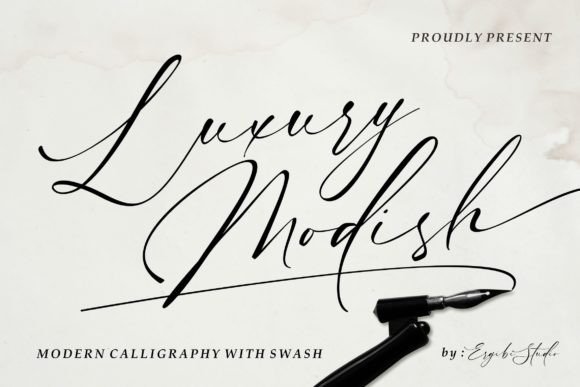
Journey into the realm of sophistication and elegance with Luxury Modish, the calligraphy font that exudes grandeur and opulence. Inspired by beautiful penmanship, Luxury Modish adds a touch of refinement to any project, making it the perfect choice for discerning designers and creative professionals.
Step into the world of Luxury Modish, where every letter is a stroke of artistry, flowing effortlessly to create a visual masterpiece. With its luxurious feel and additional swash lines, Luxury Modish elevates your designs to unparalleled heights, capturing the essence of timeless elegance.
Unleash your creativity with Luxury Modish, the ultimate font for branding, photography, invitations, quotes, watermarks, advertisements, product designs, social media posts, stationery, labels, and more! Its versatility knows no bounds, allowing you to create captivating designs that leave a lasting impression.
With Luxury Modish, you'll discover a font that speaks to your soul, evoking emotions and captivating audiences. Its carefully crafted curves and delicate strokes create a sense of luxury that enhances the impact of your messages and leaves a lasting impression.